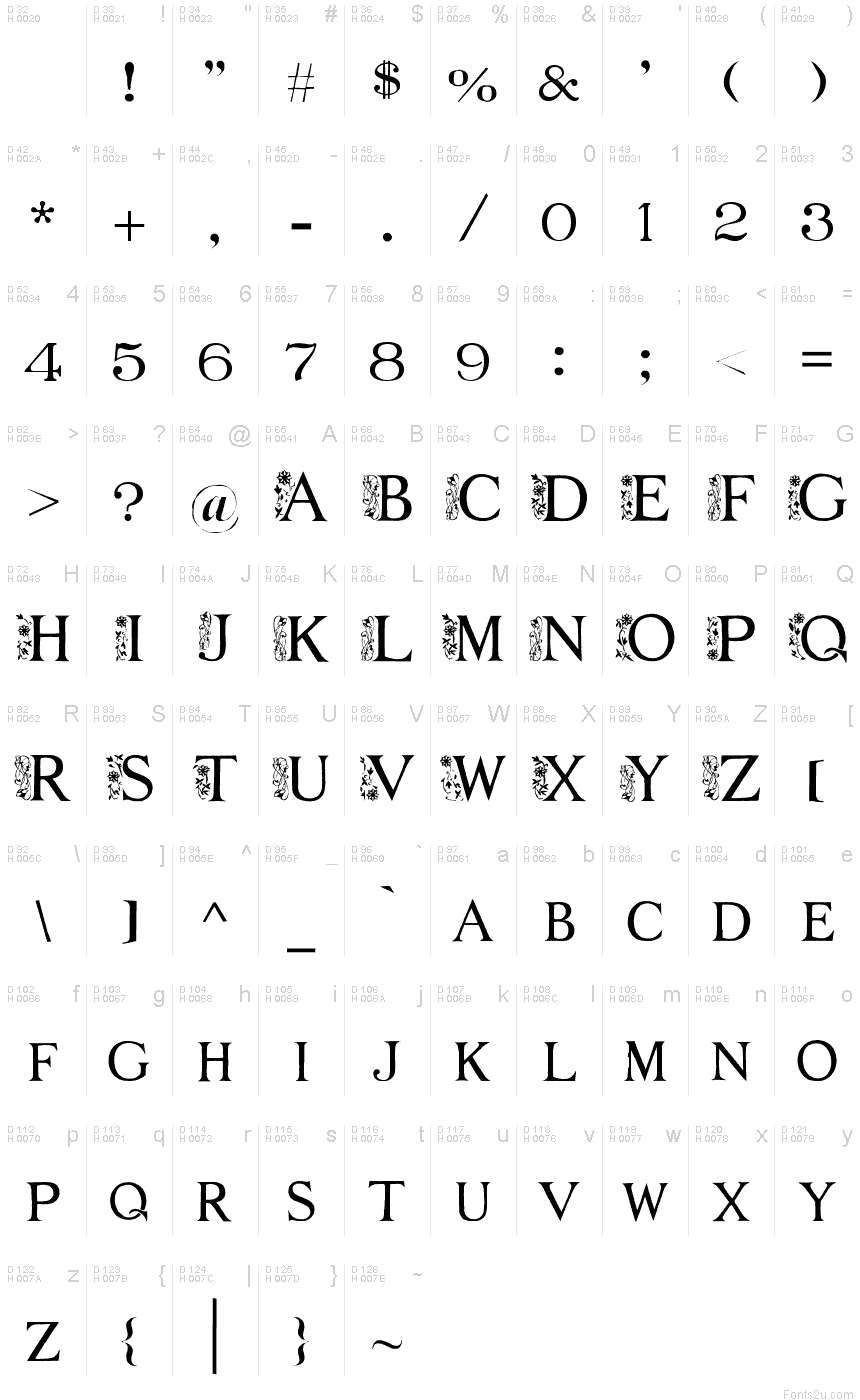
FLOWER GARDEN
Flower Garden font by The Font Farm is a free decorative serif font that turns every letter into a tiny botanical illustration. Strong, elegant letterforms are wrapped in inky vines, blooming flowers, and curling leaves, so headings feel like they’ve been hand-trimmed from an antique garden catalogue. The contrast between solid black strokes and the airy foliage gives your titles a lush, storybook charm without feeling fragile.
Using Flower Garden, you can add romance and whimsy to wedding invitations, seed packets, nature-themed posters, children’s book covers, boutique branding, seasonal menus, and craft fair signage. This free font works best at larger sizes where the slender stems and blossoms can really breathe. Pair it with a clean, understated sans serif for body text so the ornate capitals stay readable and remain the star of the page.